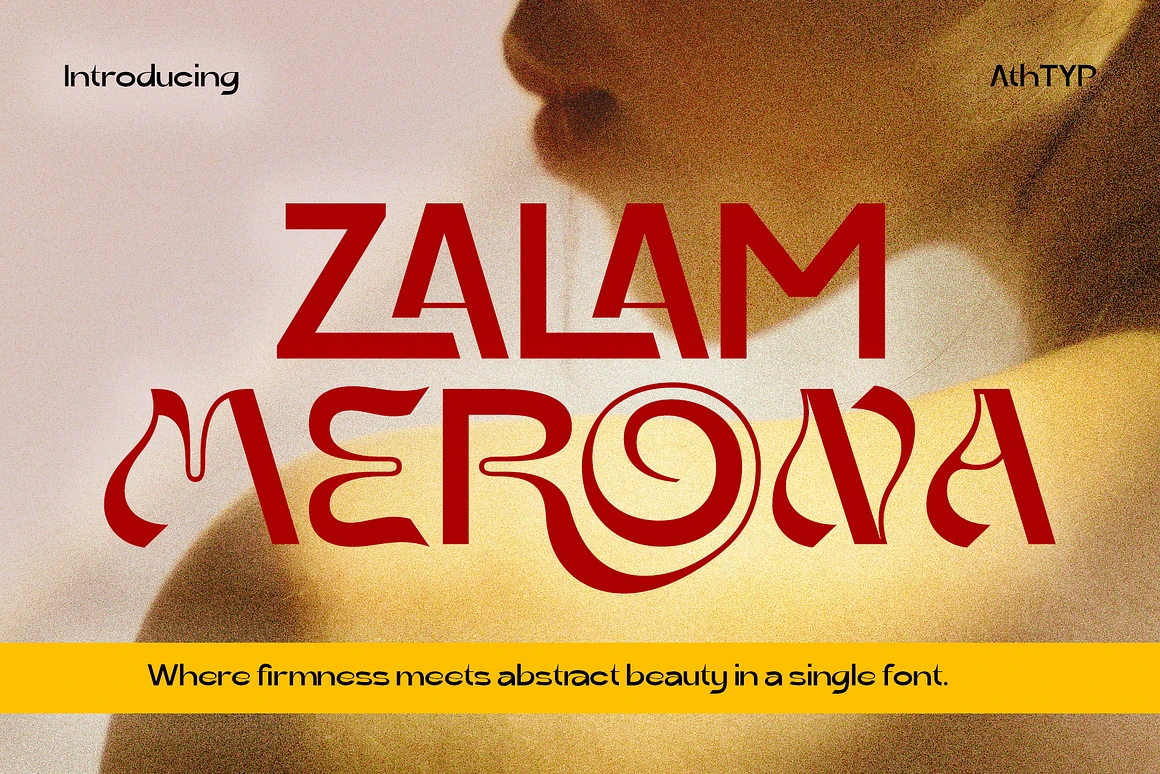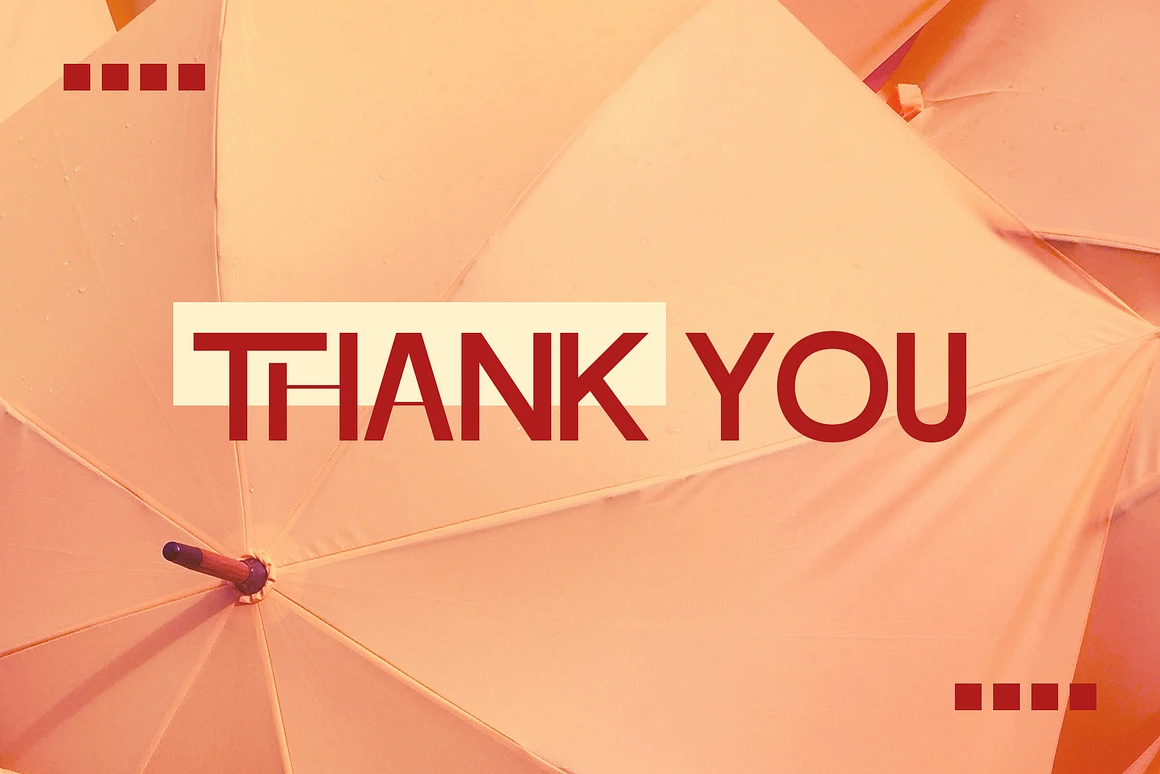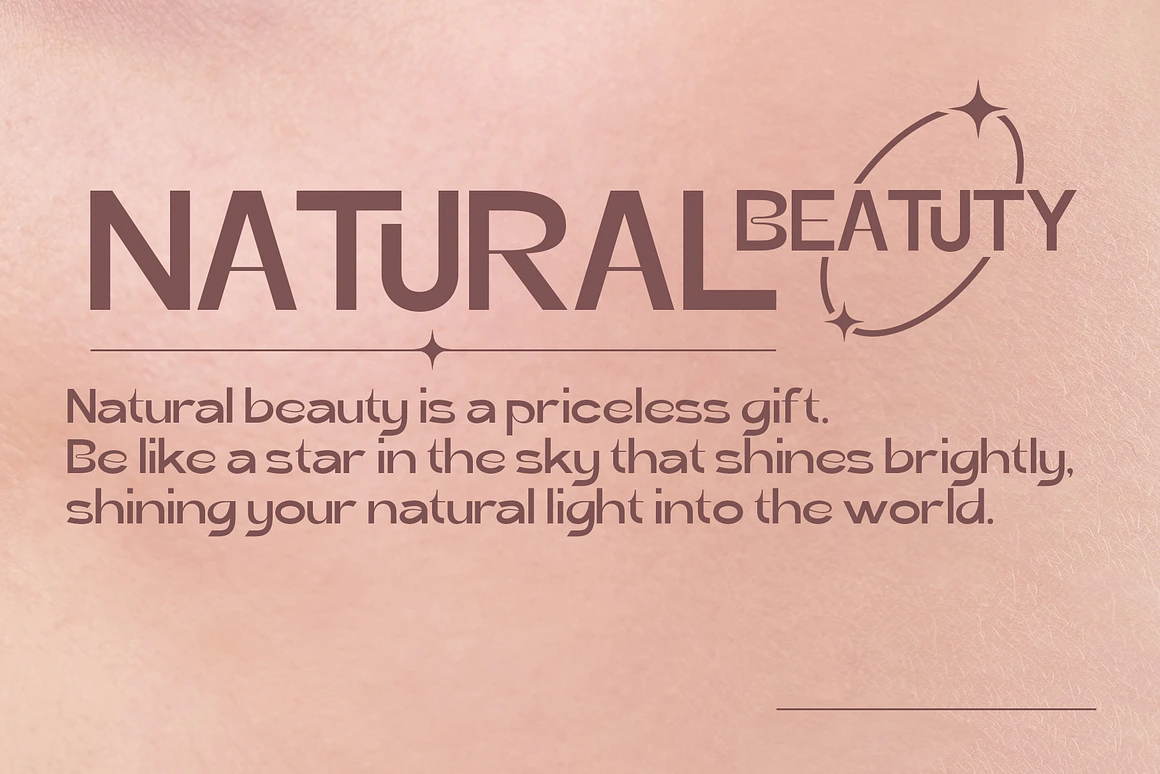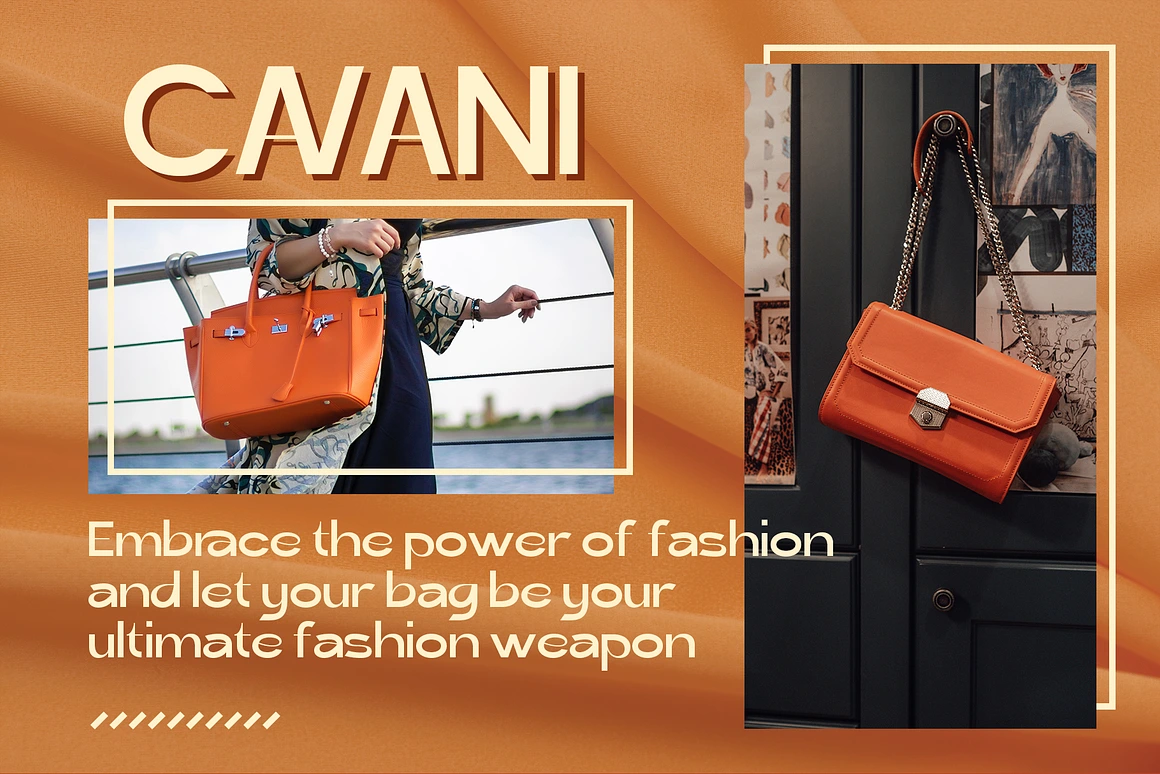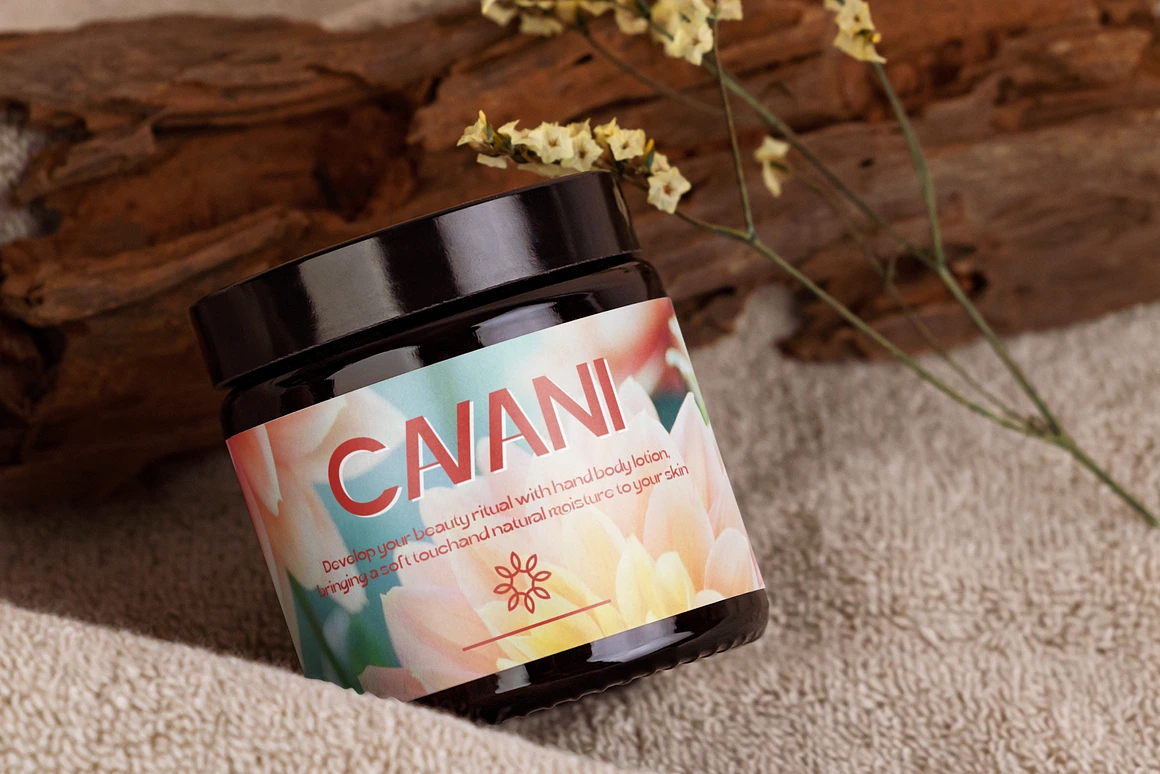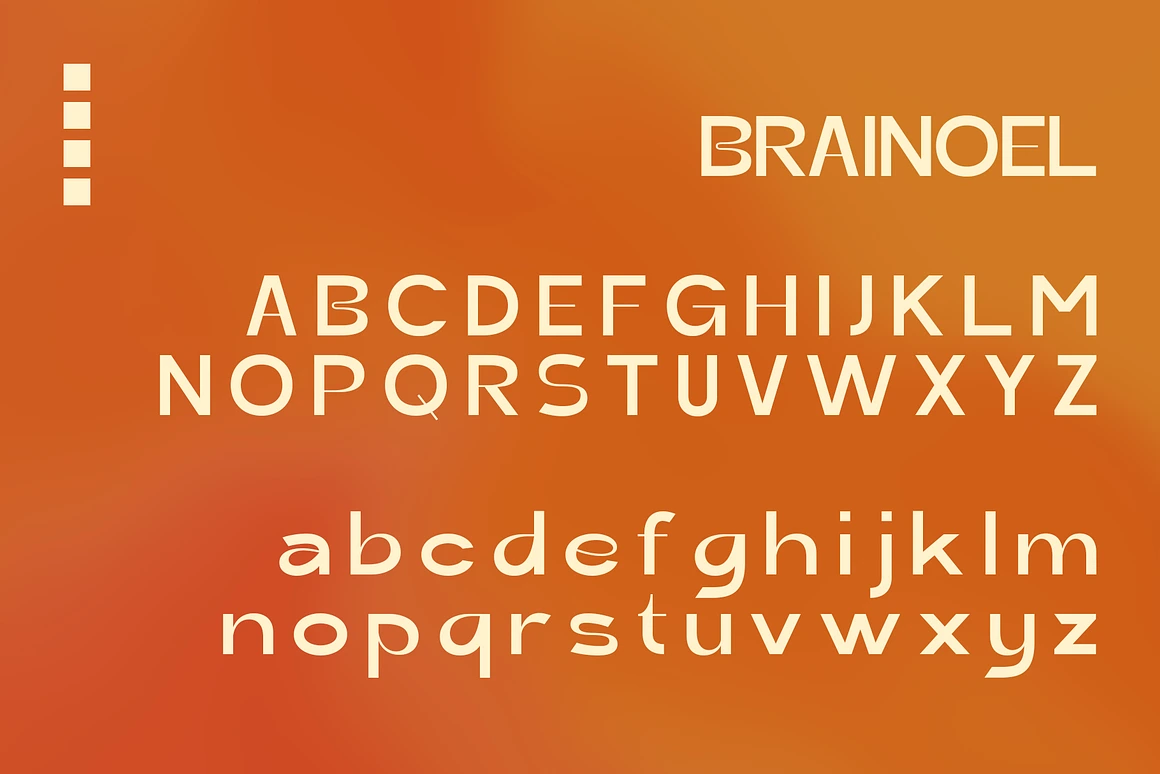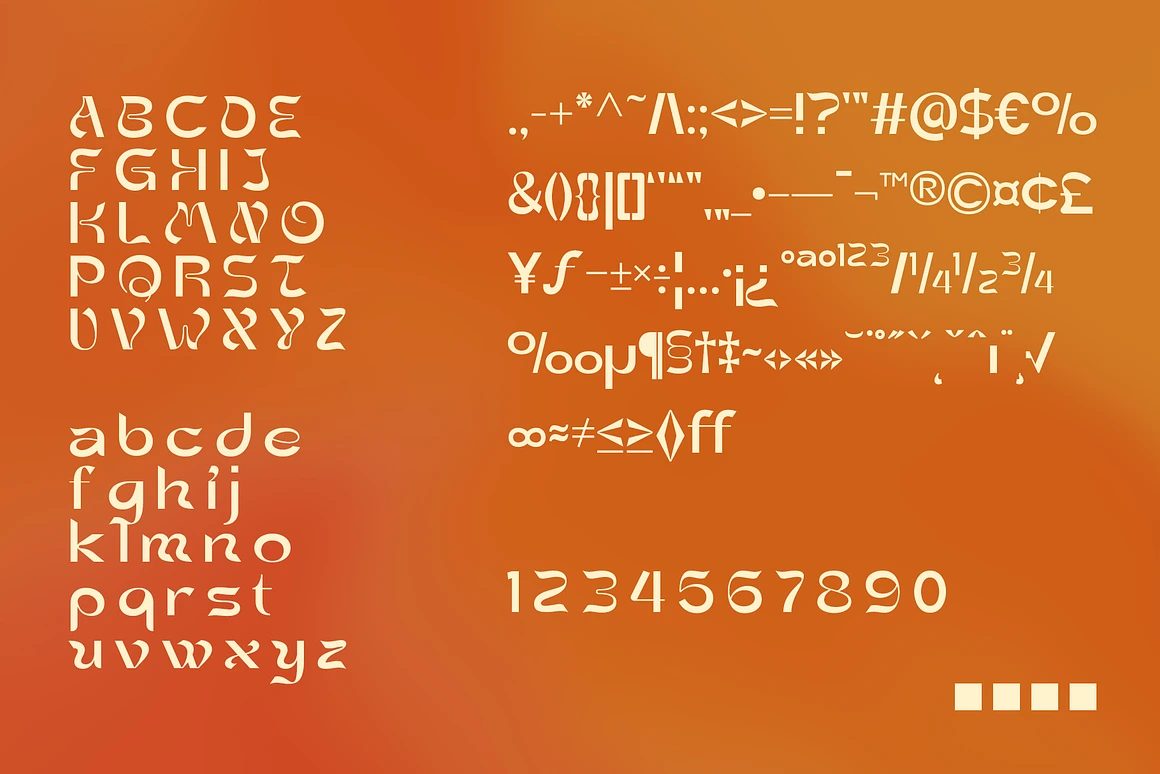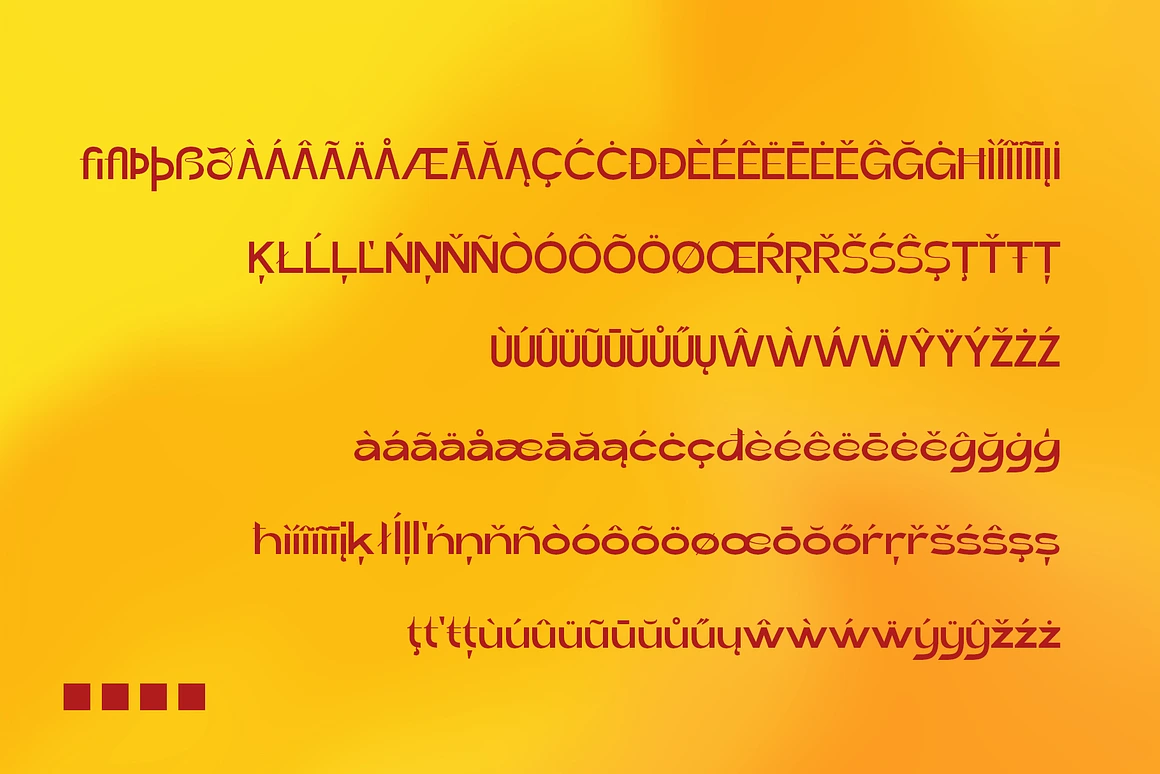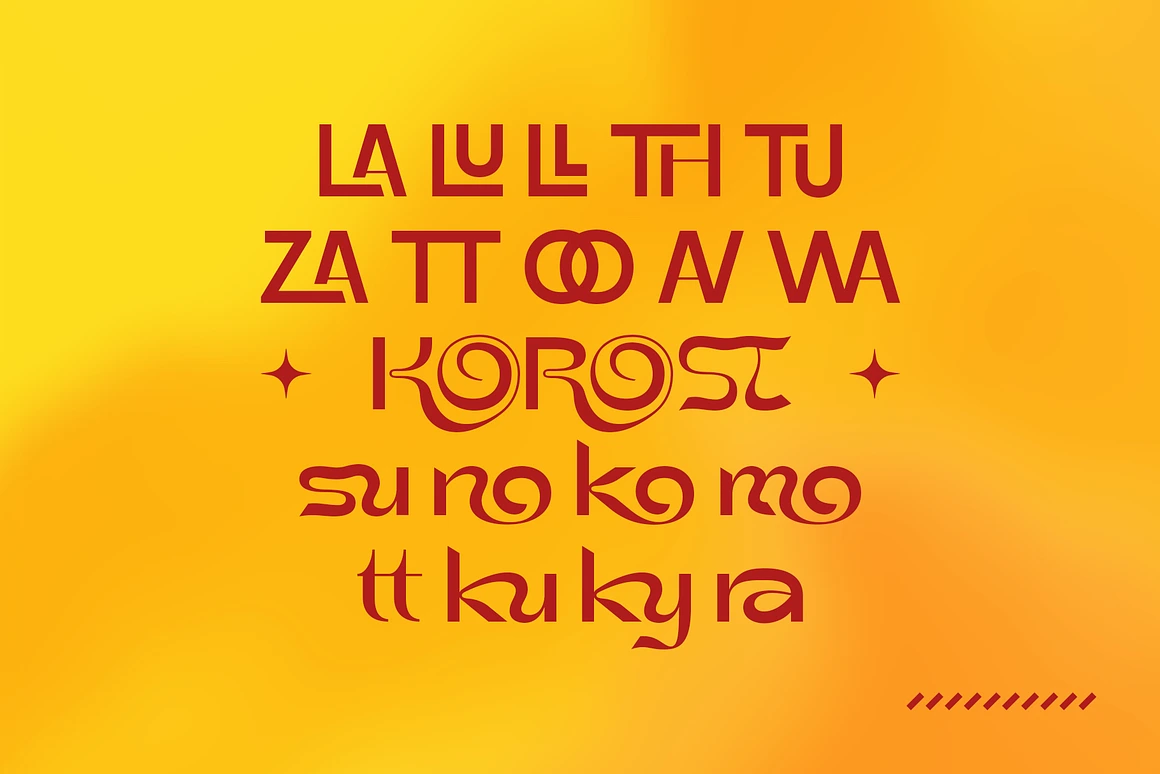
Zalam Merona Firmness Meets Abstract
ZalamMerona
Zalam Merona where firmness meets abstract beauty in a single font. This unique typeface blends two contrasting qualities seamlessly, resulting in a visually captivating and versatile design. With its distinctive features and thoughtful details, This font is set to elevate your creative projects to new heights.
The essence of Zalam Merona lies in its dual characters, embodying both firmness and abstract beauty. This striking combination allows the font to make a powerful impact while also exuding an air of intrigue and artistic flair. Whether you’re crafting a logo, designing a poster, or creating eye-catching headlines, this font ensures your message is conveyed with confidence and allure.
One of the standout features of Zalam Merona is its stylistic concept. The font’s wavy glyph lines add a dynamic and expressive touch, infusing your text with energy and movement. Each character possesses an alluring curvature that adds depth and visual interest to your designs. The subtle yet distinct waviness creates a harmonious flow, making this font a perfect choice for projects seeking a balance between structure and artistic expression.
In addition to its aesthetic appeal, Zalam Merona is rich with ligatures. These meticulously crafted ligatures enhance the fluidity and cohesiveness of your typography, allowing characters to seamlessly connect and form visually pleasing combinations. With an extensive range of ligatures available, Zalam Merona empowers you to create captivating and engaging designs with ease